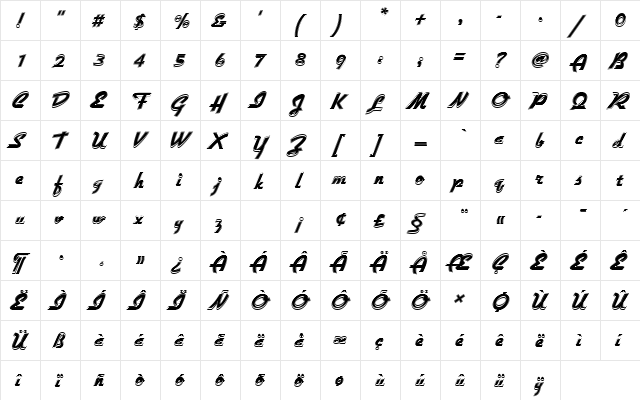
GilliesGotDExtBolIn1 Regular Font Preview
GilliesGotDExtBolIn1 Regular
GilliesGotDExtBolIn1 Regular Font Details
Design Context for GilliesGotDExtBolIn1 Typeface
GilliesGotDExtBolIn1 is a composed and adaptable typeface that performs quietly and consistently across a wide range of design contexts.